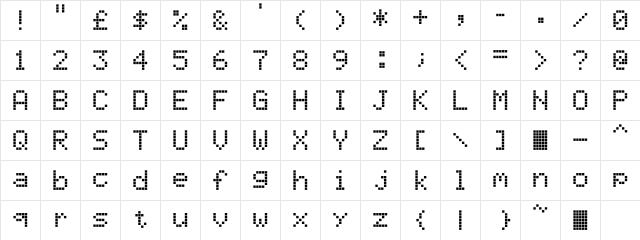
Mikey's Matrix Regular Font Preview
Mikey's Matrix Regular
Mikey's Matrix Regular Font Details
| Designer | Greysound - Mikey |
Design Context for Mikey's Matrix Typeface
Mikey's Matrix is a composed and adaptable typeface that performs quietly and consistently across a wide range of design contexts.